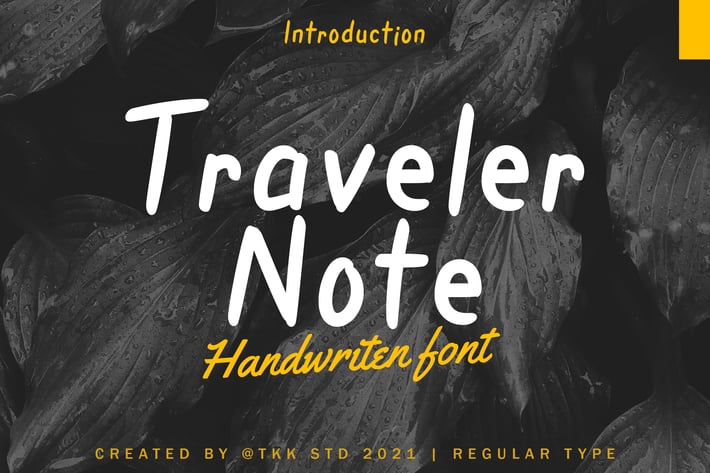
Traveler Note - Handwritten Font
Traveler Note - A Handwritten Journey in Every Letter
Traveler Note is a modern handwritten font with a relaxed personality and bold clarity. Inspired by journals, city lights, and personal adventures, this font captures the soul of handwritten storytelling. Its casual yet clean look makes it perfect for branding, editorials, and stylish marketing.
From boutique logos to travel blogs, Traveler Note adds a human touch that feels both sophisticated and approachable.
Great for:
Branding and business cards
Book covers and posters
Lifestyle blogs and fashion titles
Quote designs and invitations
Every letter is a destination. Let your words travel with Traveler Note.